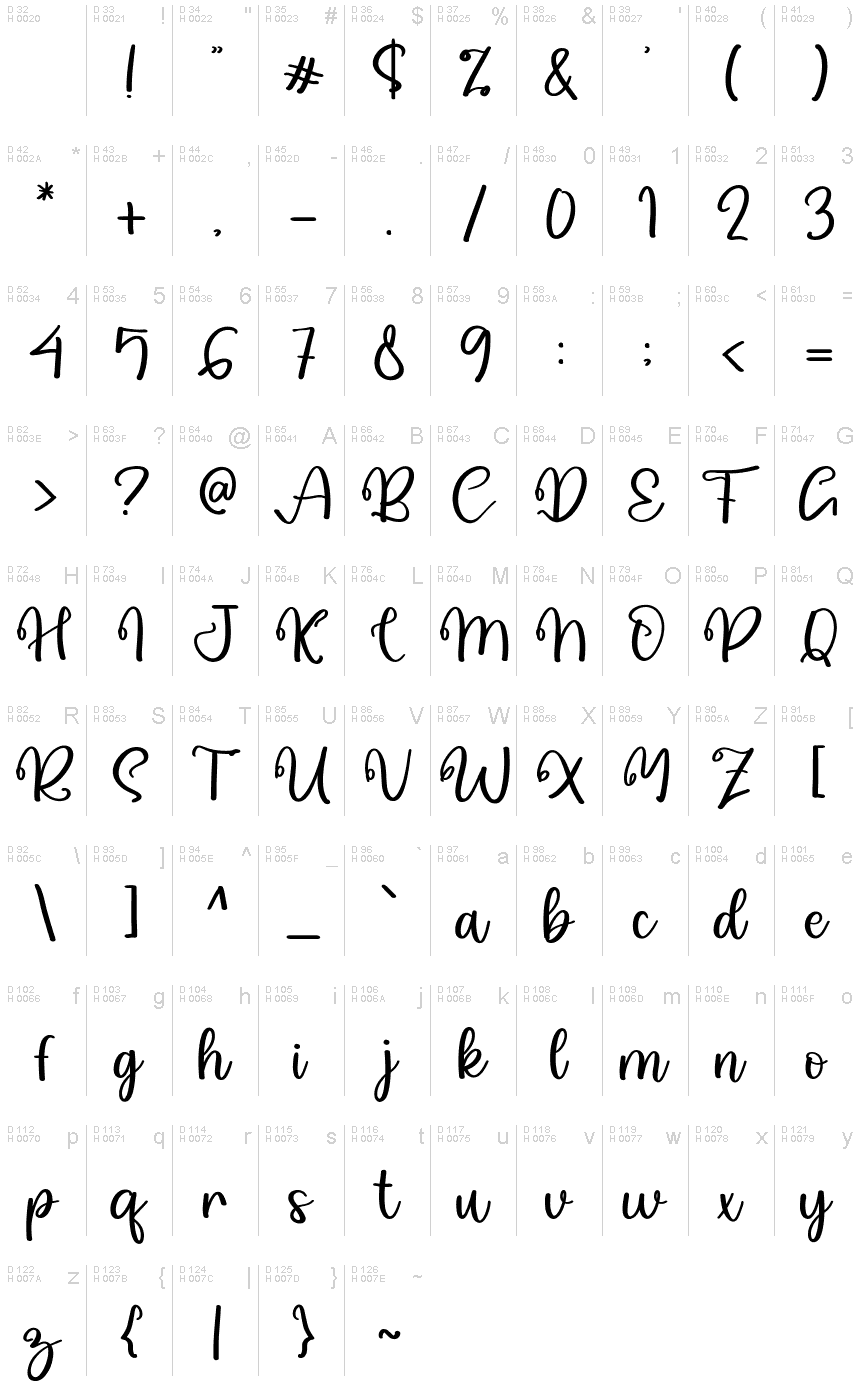
Baby Asyifa is a lovely handwritten font designed by Erlina Graphic that exudes charm and elegance. Its playful curves and smooth lines make it perfect for projects that require a touch of femininity, such as wedding invitations, baby announcements, or beauty blogs. Whether used in its regular or semi-bold typeface, Baby Asyifa creates a warm and inviting atmosphere that draws in the reader. Its narrow width also makes it suitable for logos and branding materials, giving them an air of sophistication. Give your designs a touch of whimsy with the delightful Baby Asyifa font.